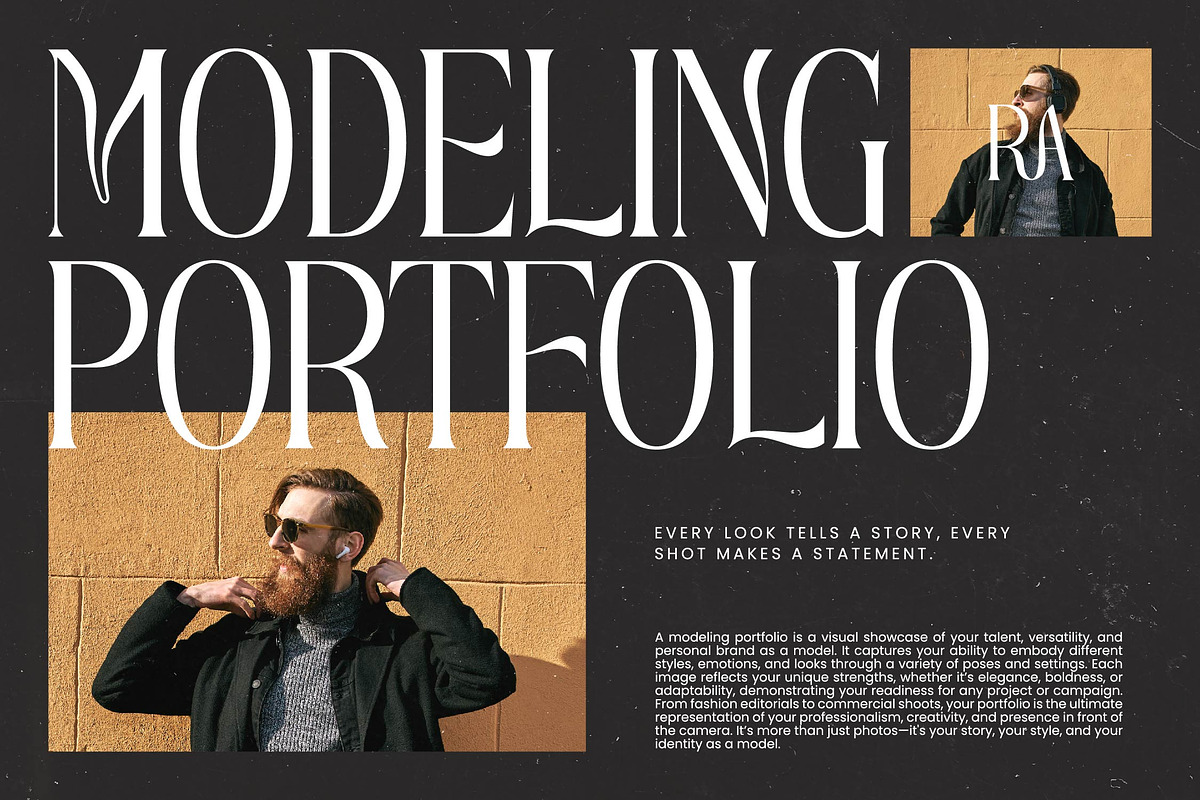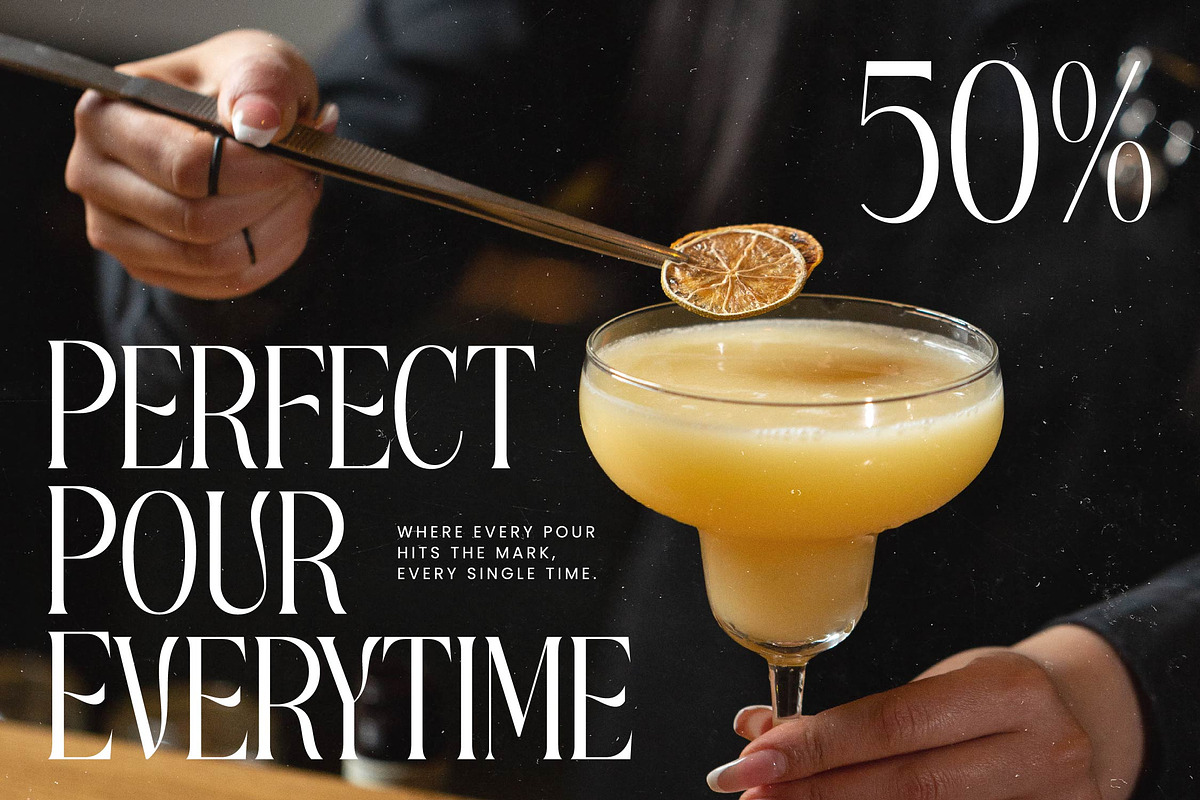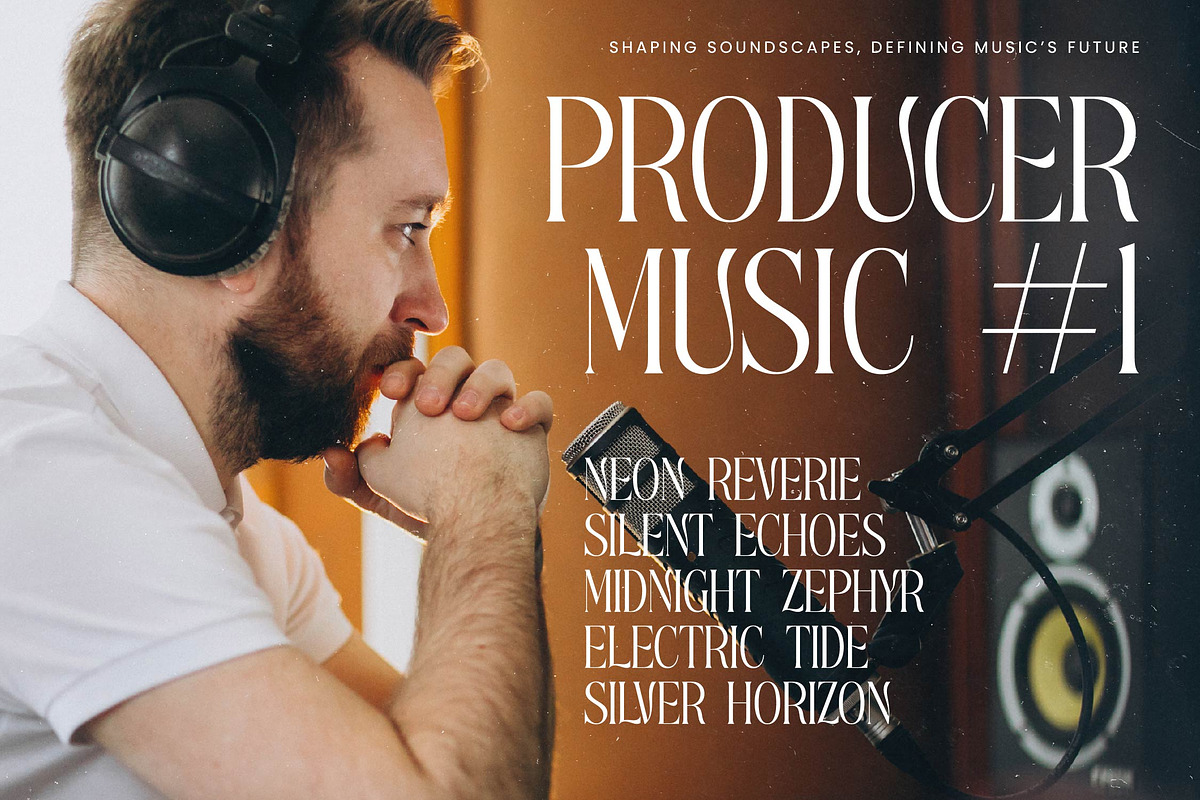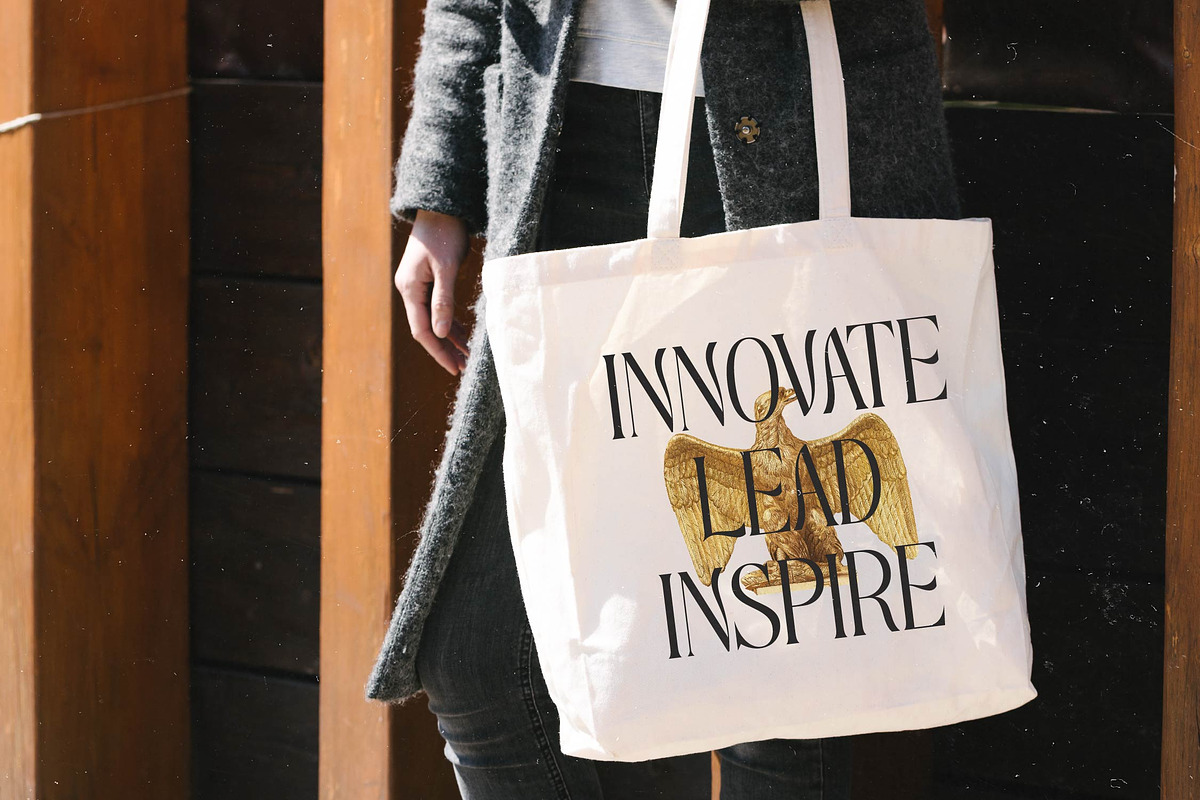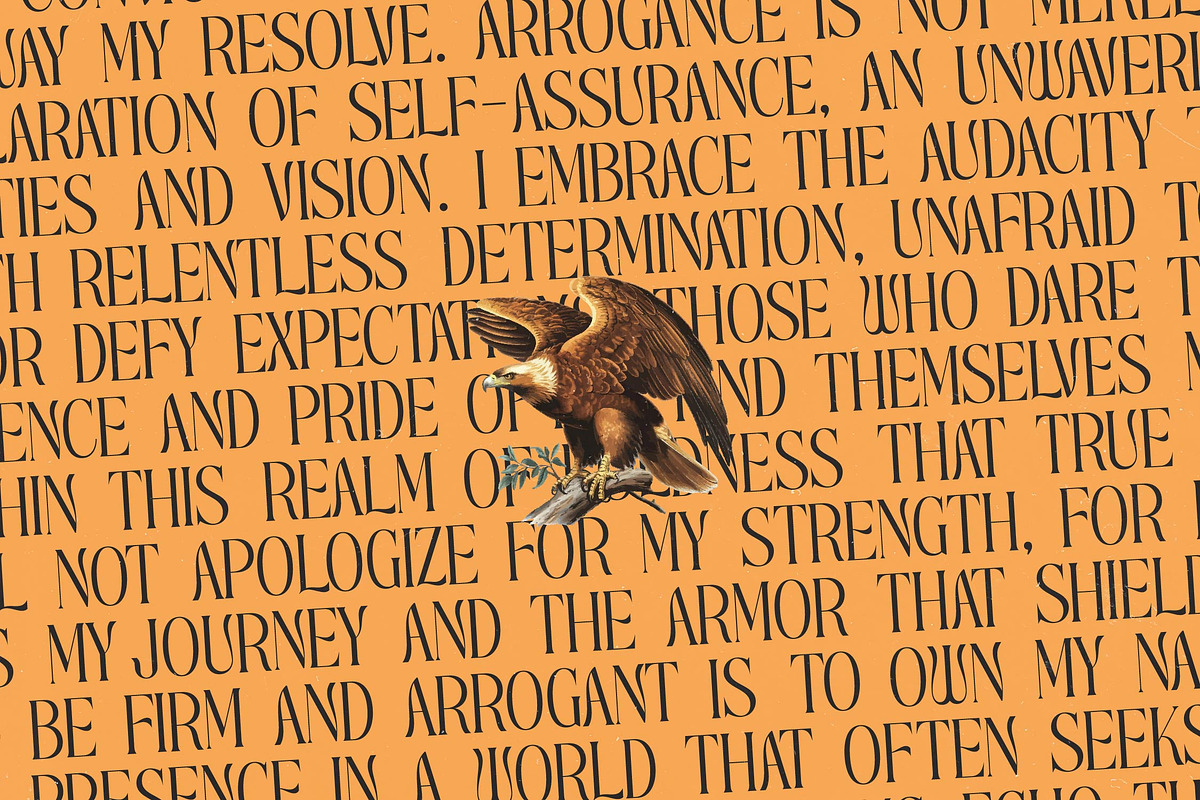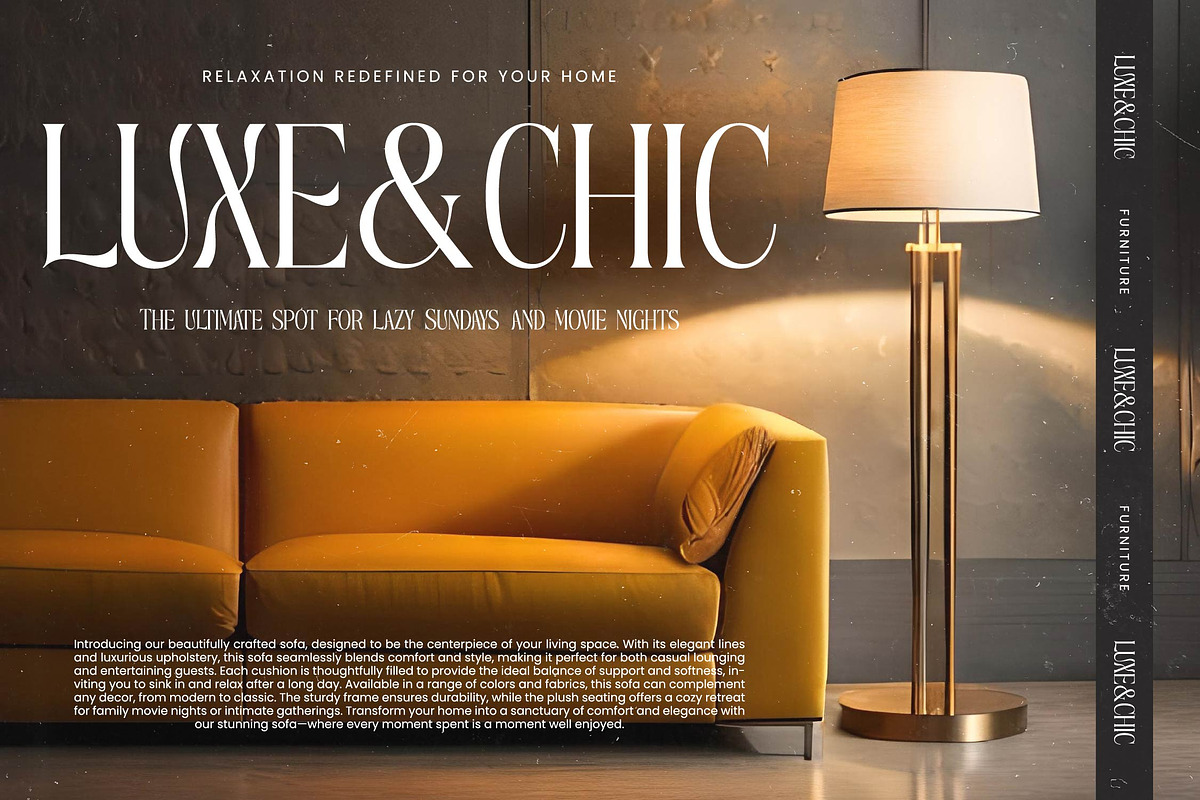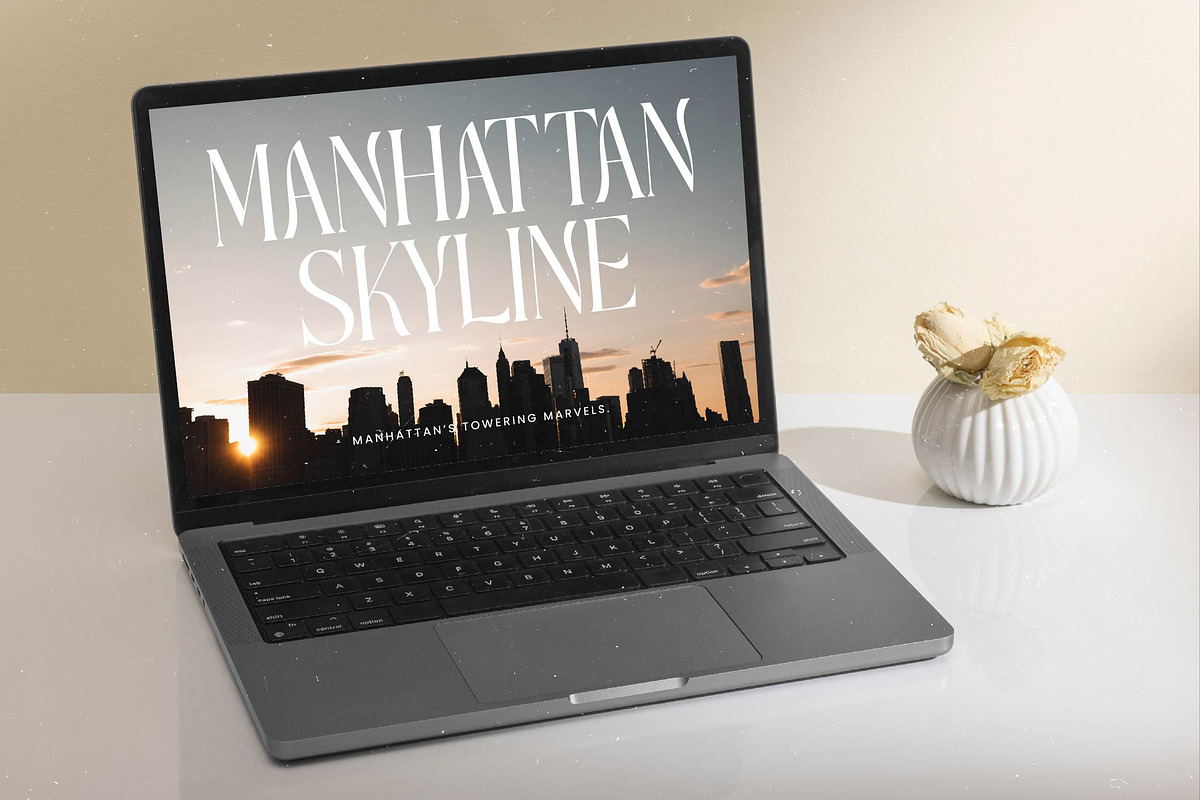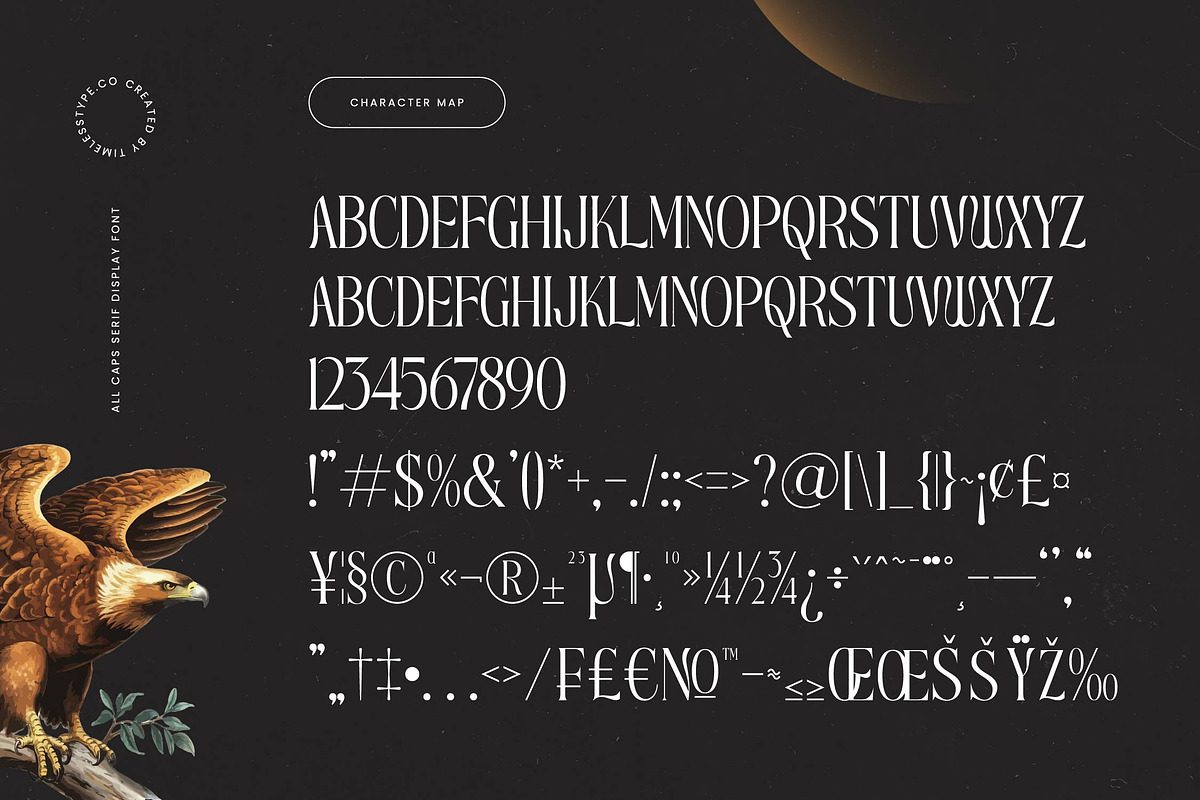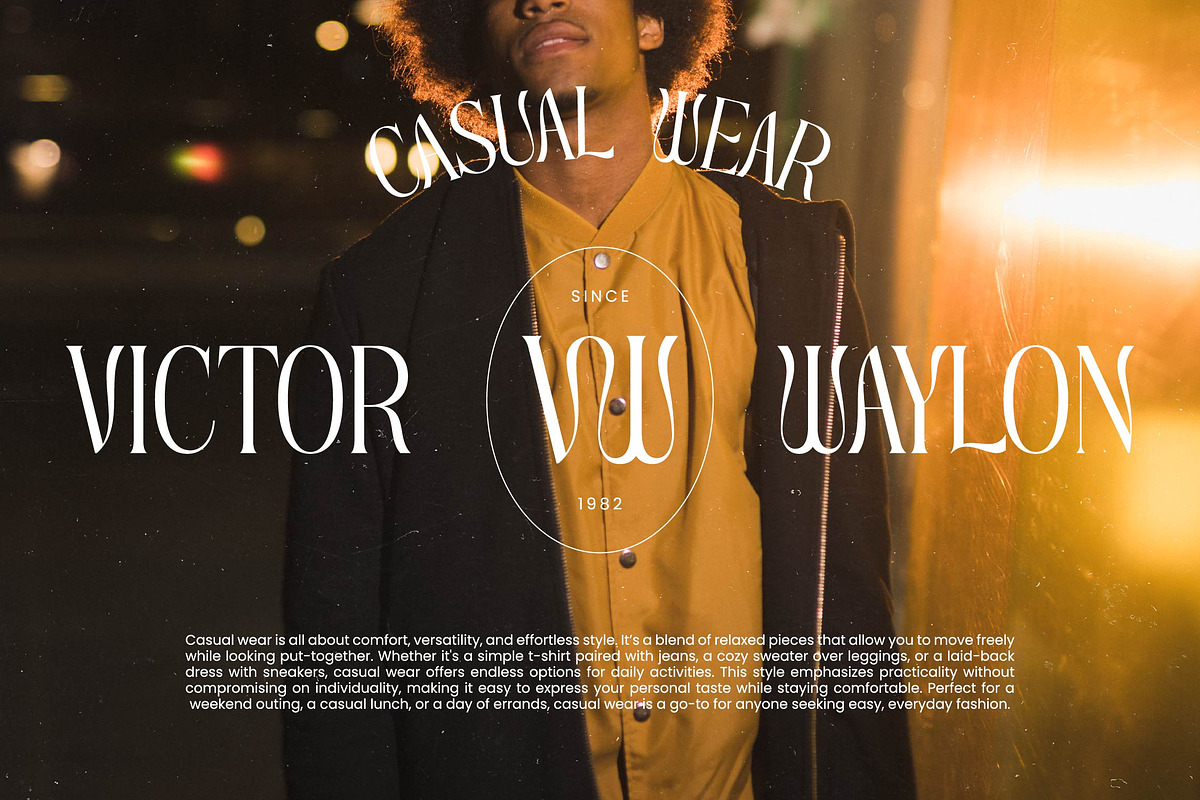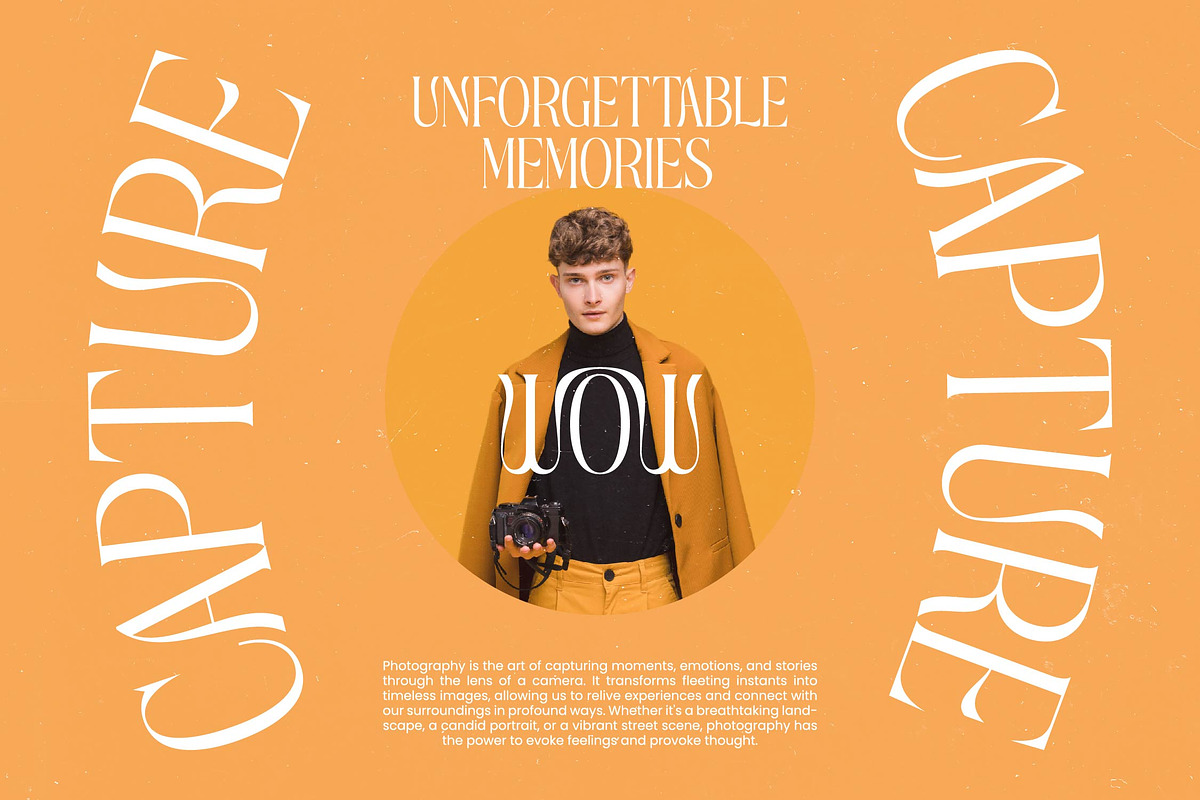
Roxbury Egoism All Caps Serif
Experience the intersection of classic elegance and bold statement-making with Roxbury Egoism All Caps, a font designed for those who want their message to resonate with undeniable authority. This typeface isn't just a collection of letters; it is a sophisticated design tool that transforms any layout into a masterpiece of visual storytelling.
Drawing inspiration from the golden era of high-end editorial design and the refined aesthetics of vintage boutique branding, this font captures a timeless spirit. It evokes the atmosphere of a luxury manor library where legacy meets a sharp, modern perspective, blending the strength of nature with the delicacy of fine art to create a unique visual experience.
Exuding a sense of prestige, this modern serif display provides a luxury typography solution that demands attention through its high-contrast serif strokes and sharp terminals. It functions as a powerful editorial font that balances grace with a massive branding impact, making every word feel curated, intentional, and exceptionally high-end.
Aligned perfectly with the current modern serif trend, this typeface addresses the growing demand for editorial display fonts that offer more than just legibility. By utilizing character-driven typography, it allows designers to break away from generic styles and embrace a more expressive, high-fashion aesthetic that is currently dominating international design circuits.
This font is the ultimate choice for high-end logo design and premium branding projects where a sense of exclusivity is paramount. It excels in sophisticated editorial layouts, luxury product packaging, romantic wedding stationery, and high-fashion magazine spreads that require a touch of modern class and distinct personality.
Unlock endless creative possibilities with a rich set of 32 ligatures and 8 unique alternates that allow for custom-tailored typographic compositions. The set includes beautiful swashes and offers full multilingual support with a comprehensive range of international characters, ensuring your global brand message is delivered with consistent elegance.